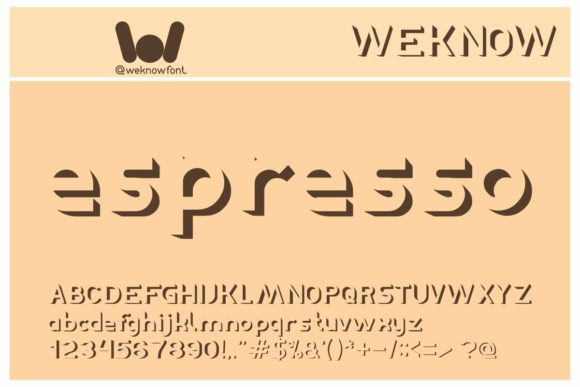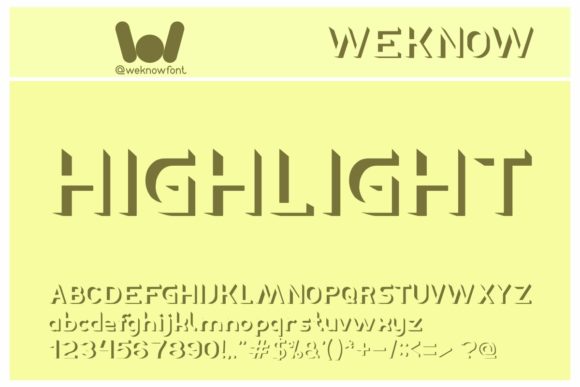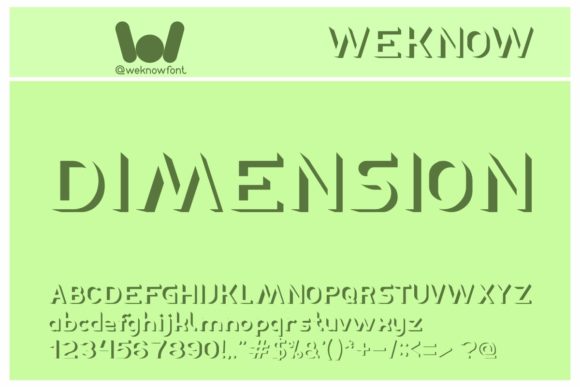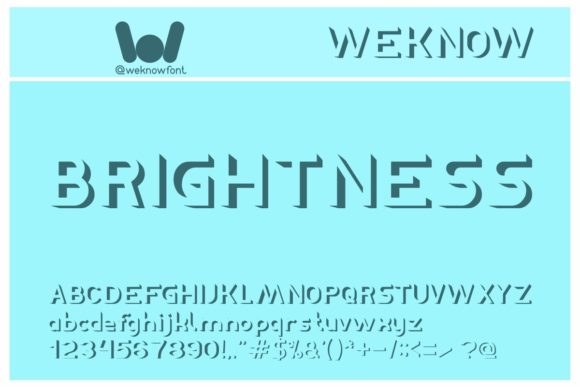
The Moment of Truth: Finding the Perfect Font
I still remember the frustration of working on a project, hours spent on designing the perfect poster, only to hit a roadblock – finding the right font. The client wanted something bold, eye-catching, and 3D, but I was stuck with the usual suspects. That’s when I stumbled upon Exposure Font, and it changed the game. In this article, I’ll share my experience with Exposure, its features, and how to make the most of it in your designs.
What I Love About Exposure Font
- ✨ Stunning 3D effect: Exposure Font gives your text a mesmerizing 3D look that’s sure to grab attention.
- ✅ High versatility: This font is perfect for posters, flyers, prints, and any other design project that needs a bold statement.
- 🎨 Endless possibilities: With its range of OpenType features and glyphs, you can experiment with various styles and effects.
While Exposure Font is amazing, there are a few things to keep in mind:
- 🤔 Legibility at small sizes: Like many 3D fonts, Exposure can be tricky to read at smaller sizes. Make sure to test it in your design.
- ⚠️ Overuse of effects: Be careful not to overdo it with the 3D effects – too much can be overwhelming.
The Designer Inspiration Behind Exposure Font
Exposure Font was inspired by the neon-lit cityscapes of the 80s and 90s. The designer, a fan of sci-fi and futuristic themes, aimed to create a font that would transport users to a world of high-tech wonder. The result is a font that’s both nostalgic and cutting-edge.
| Is Exposure Font suitable for body text? | While Exposure Font is stunning, it’s best used for headlines and titles. For body text, consider a more legible font. |
Exposure Font is a game-changer for designers looking to add a bold, 3D effect to their work. With its versatility, stunning visuals, and ease of use, it’s sure to become a favorite in your font collection. So go ahead, experiment with Exposure Font, and take your designs to the next level!